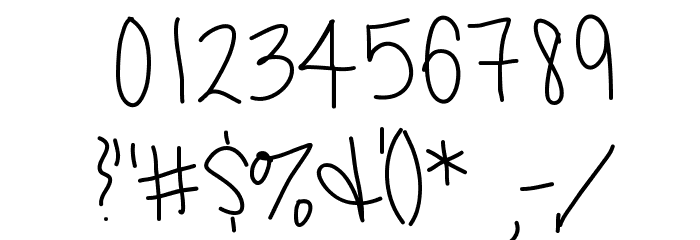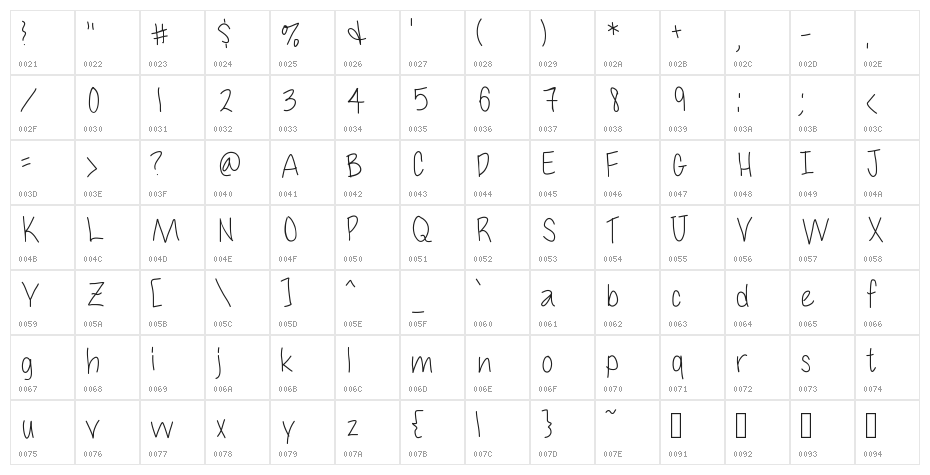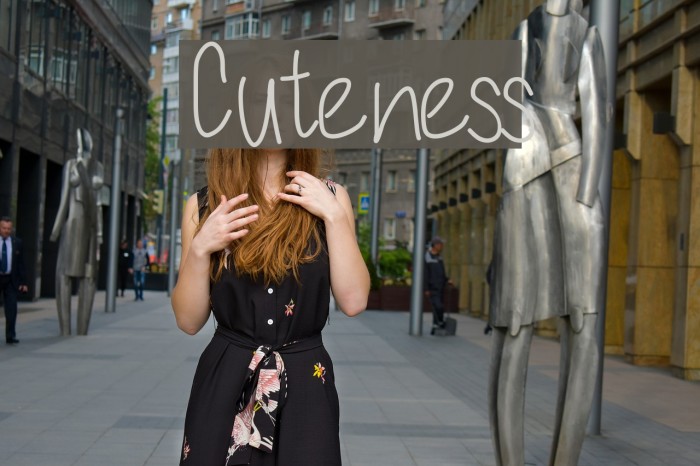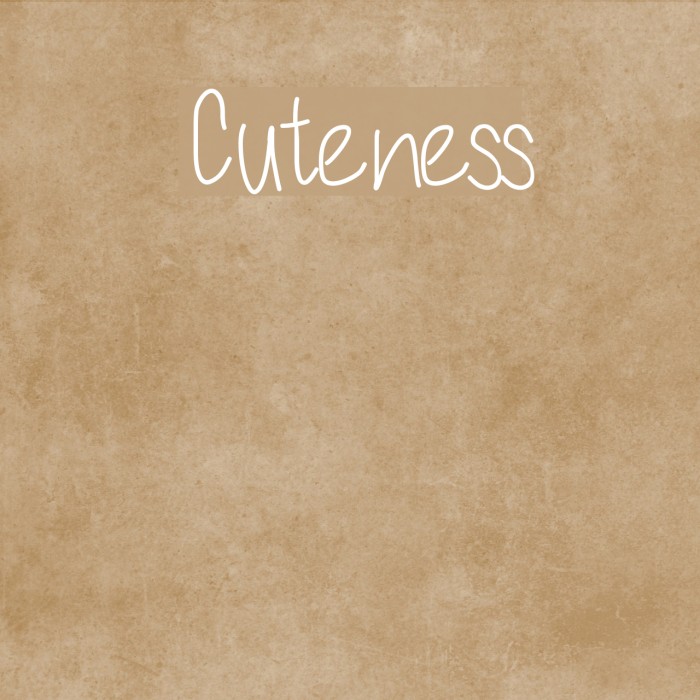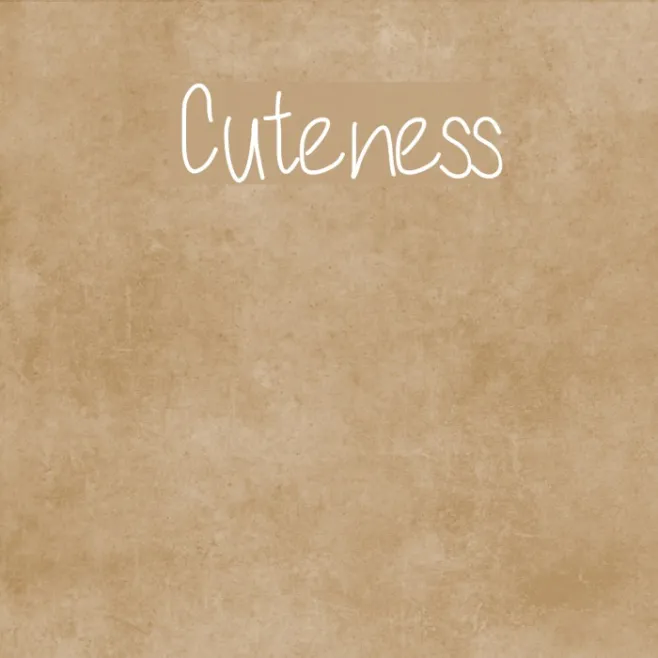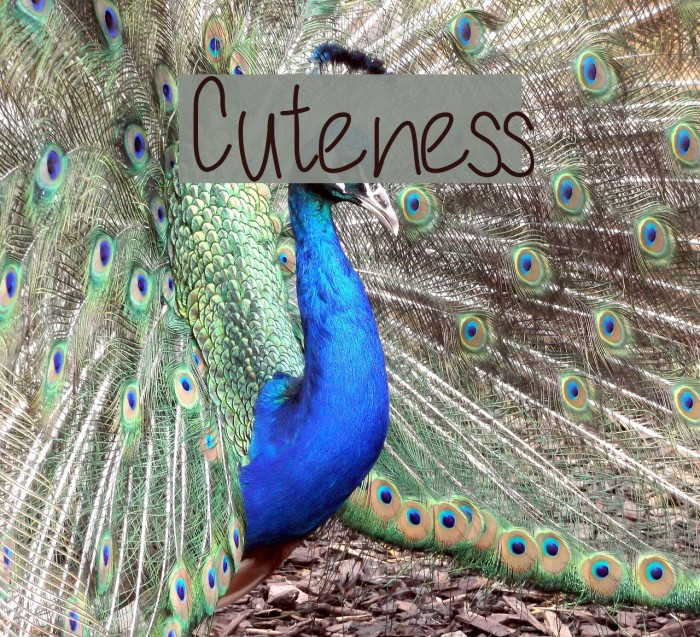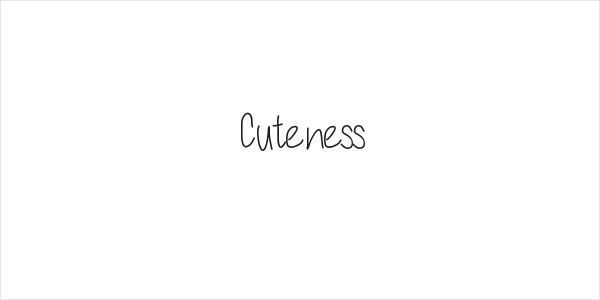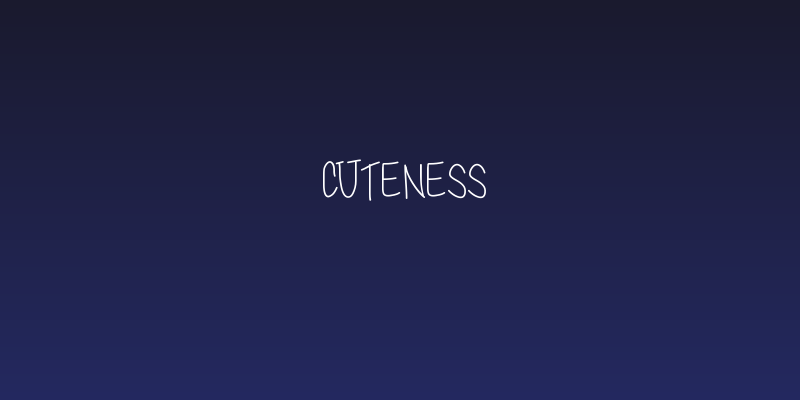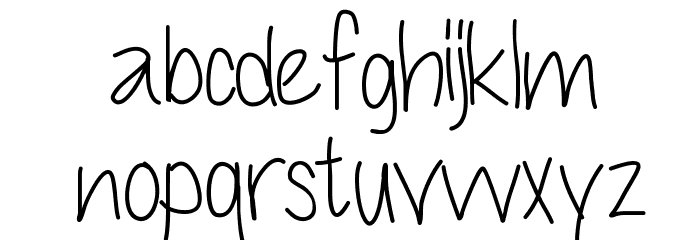
Cuteness Font
Cuteness Description
This playful and whimsical font features a handwritten style that exudes a sense of fun and informality. The letters are characterized by their irregular, slightly tilted forms, giving them a lively and dynamic appearance. The strokes are consistent in width, maintaining a uniform look across both uppercase and lowercase letters. The numerals and special characters follow the same playful aesthetic, making the font versatile for various creative applications. Its casual and friendly vibe makes it ideal for projects that aim to convey warmth and approachability.
| Proposed Projects | Ideal for children's books, greeting cards, playful branding, and social media graphics. |